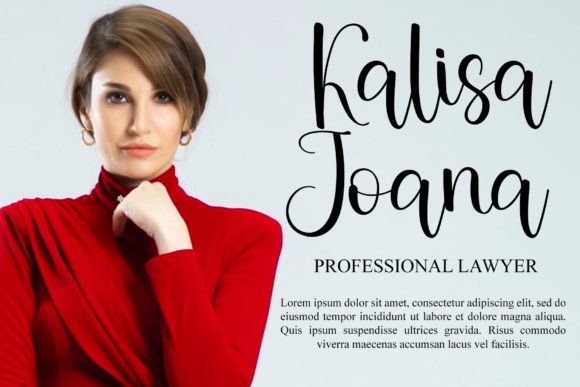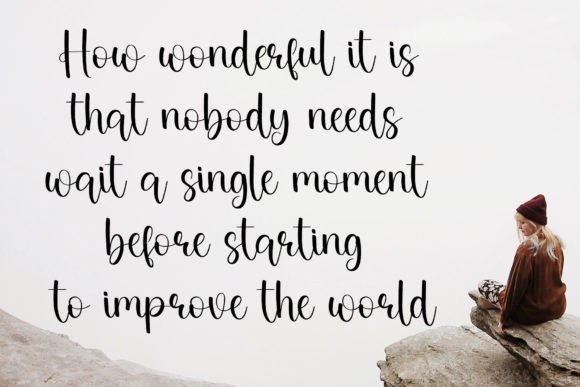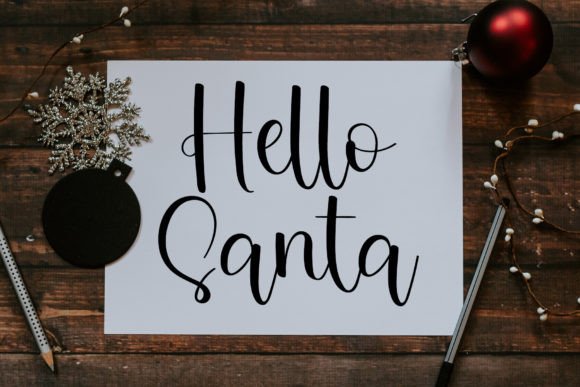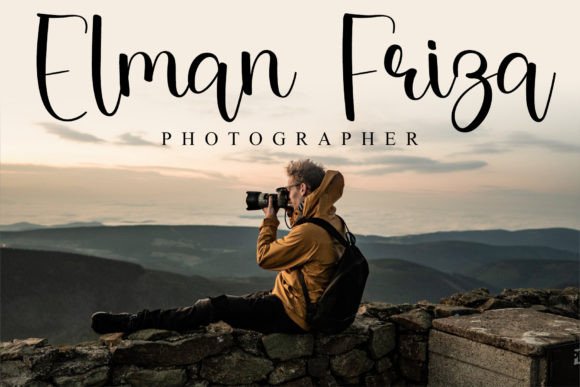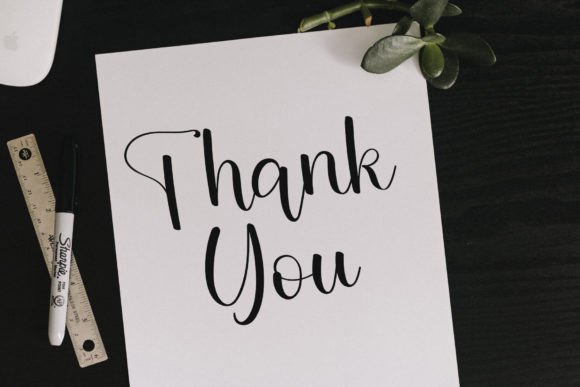
The Butterfly Effect: How This Elegant Font Transformed My Designs
I still remember the day I stumbled upon the Butterfly font while working on a wedding invitation project. I had tried countless fonts, but none seemed to capture the essence of elegance and whimsy that I was looking for. That was until I saw Butterfly – its delicate, handwritten strokes and intricate details instantly won me over. In this article, I’ll share my experience with this beautiful font, its features, and how you can make the most of it in your designs.
An Honest Review of Butterfly Font
- ✨ Elegant and delicate handwritten typeface perfect for various design projects
- ✅ PUA encoded for easy access to glyphs and alternates
- 💕 Perfect for logos, branding, social media posts, advertisements, business cards, wedding invitations, and product design
- 🎨 Highly versatile and can be used for both digital and print designs
While Butterfly font is an excellent choice for many design projects, there are a few things to keep in mind:
- ⚠️ Some users may find the font a bit too delicate for certain design applications, such as bold or large-scale projects
- 🤔 Limited availability of bold or condensed versions, which may limit its use in certain contexts
A Practical Guide to Using Butterfly Font
Butterfly font was designed with the intention of creating a beautiful, elegant typeface that captures the essence of whimsy and romance. The designer aimed to create a font that would be perfect for a variety of design projects, from wedding invitations to luxury branding. The result is a delicate, handwritten font that exudes sophistication and charm.
A: PUA (Private Use Area) encoding allows font users to access glyphs and alternates easily, making it simpler to customize and extend the font.
Q: Is Butterfly font suitable for large-scale or bold designs?
A: While Butterfly font is elegant and delicate, it may not be the best choice for large-scale or bold designs. However, it can still be used effectively with careful typography and design considerations.